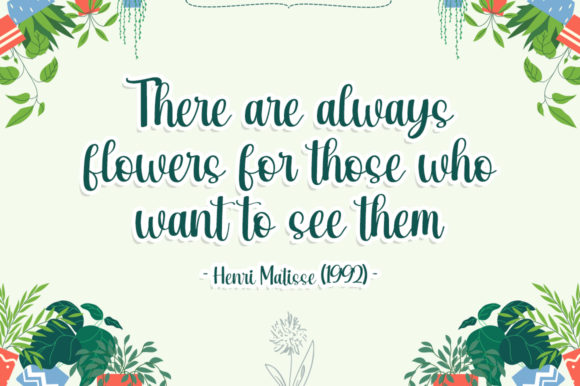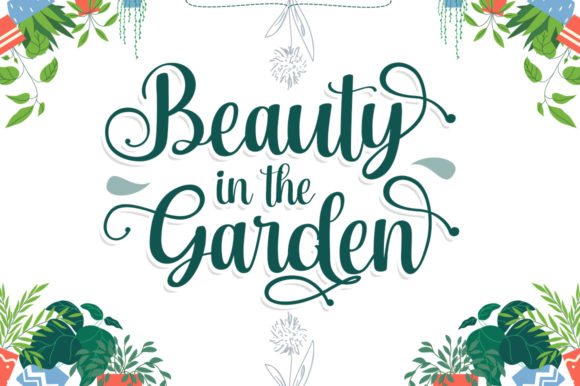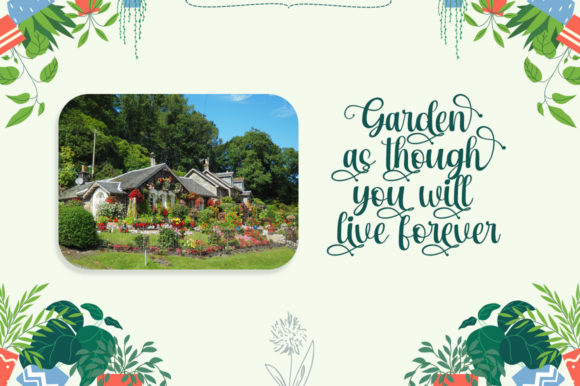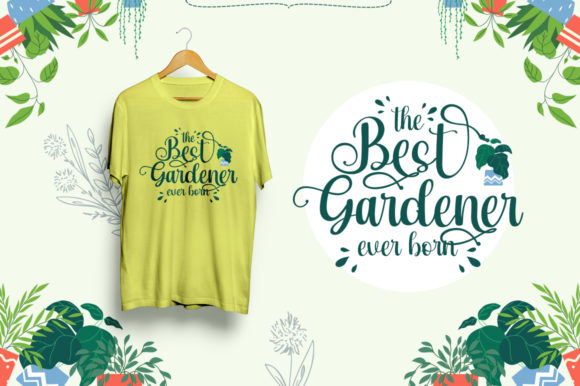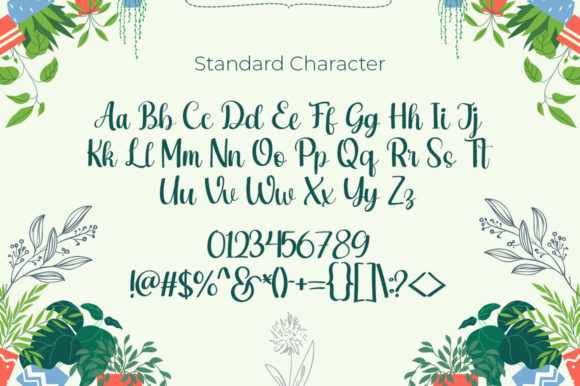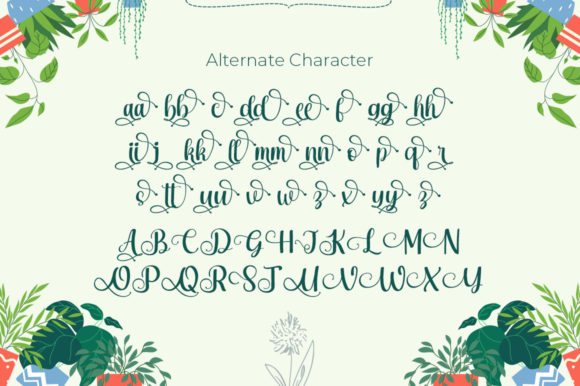
Introduction to Rashida Garden Font
Rashida Garden is a beautiful and flowing handwritten font.
It looks beautiful on a variety of designs requiring a personalized style, such as wedding invitations, thank you cards, weddings, greeting cards, logos and so on This font is PUA encoded which means you can access all of the glyphs and swashes with ease.